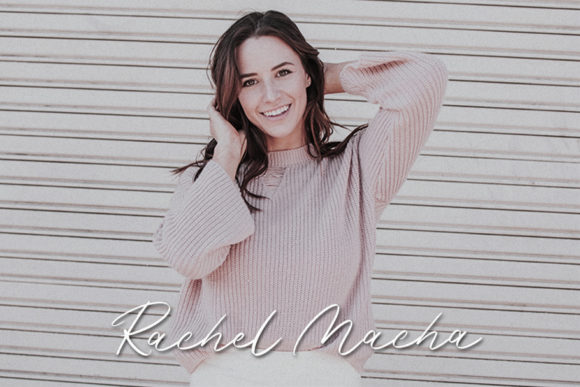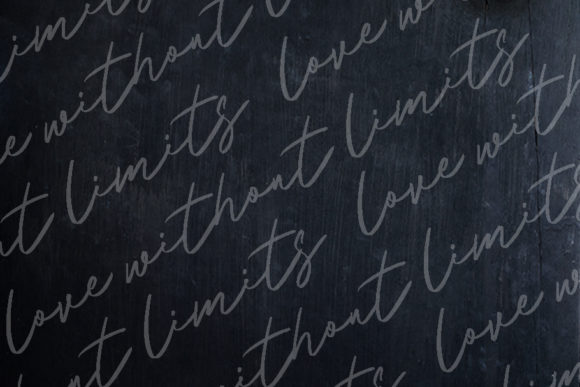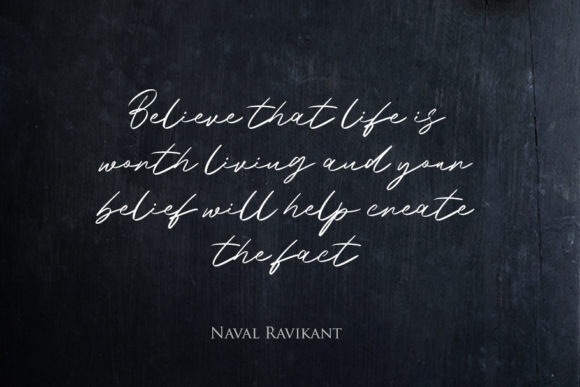
About Erasmus Font
Erasmus is an exquisitely elegant and flowing handwritten font that exudes sophistication and charm. With its versatile style, Erasmus is a perfect fit for a wide range of design projects, adding a touch of grace and refinement to each creation. Here are some specific ways to utilize the beauty of the Erasmus font:
1. Wedding Invitations: Craft captivating and elegant wedding invitations with Erasmus, setting the tone for a romantic and timeless celebration of love.
2. Thank You Cards: Express gratitude with style using Erasmus, creating exquisite and heartfelt thank you cards that leave a lasting impression.
3. Quotes and Typography Art: Design eye-catching typography art and quote posters, combining meaningful messages with the graceful appeal of Erasmus.
4. Greeting Cards: Create charming and stylish greeting cards for various occasions, infusing warmth and elegance into your well-wishes.
5. Logos and Branding: Utilize Erasmus for logos and branding elements, projecting a sense of sophistication and refinement for your business identity.
6. Business Cards: Make a memorable impression with business cards featuring Erasmus, showcasing your professionalism with an artistic touch.
7. Personal Stationery: Elevate your personal stationery with the elegance of Erasmus, adding a touch of grace to your correspondence.
8. Book Covers: Apply Erasmus to book covers, enhancing the visual appeal of your literary works with its flowing and captivating style.
9. Social Media Graphics: Create captivating and polished social media graphics with Erasmus, capturing attention with its refined charm.
10. Art Prints: Use Erasmus for art prints, producing elegant and artistic pieces that captivate art enthusiasts and collectors alike.
11. Packaging and Labels: Enhance product packaging and labels with Erasmus, elevating the visual appeal of your products with its graceful flair.
12. Event Invitations: Design exclusive and stylish event invitations, showcasing the allure of Erasmus for special occasions.
13. Signage and Displays: Utilize Erasmus for signage and displays, making a sophisticated and artistic statement in various settings.
14. Magazine Headlines: Apply Erasmus to magazine headlines, adding an elegant touch to editorial layouts and attracting readers’ attention.
15. Website and Blog Headers: Implement Erasmus in website banners and blog headers, elevating the visual appeal of your online platform.
The elegance and flowing qualities of the Erasmus font make it an excellent choice for a wide variety of design projects. Its varying baseline, smooth lines, gorgeous glyphs, and stunning alternates contribute to its allure and versatility. Whether used for formal or creative endeavors, Erasmus’ grace and charm will captivate audiences and elevate every piece you create to new heights of beauty and sophistication.